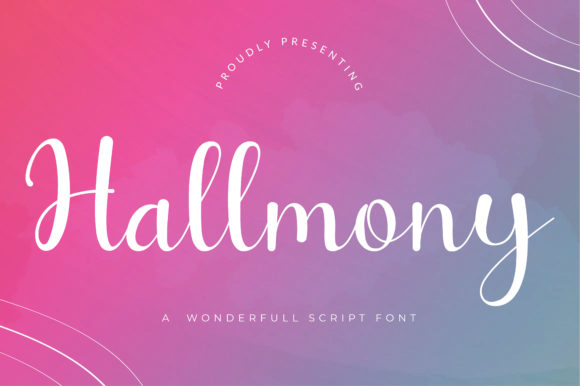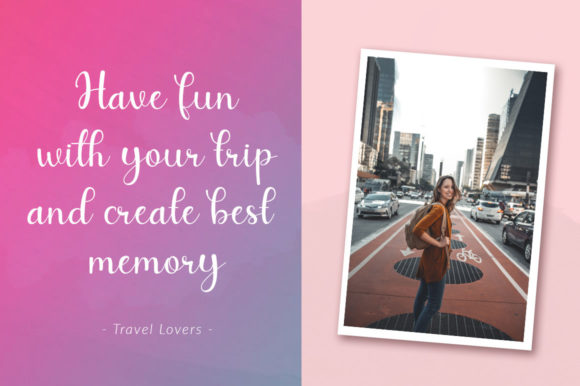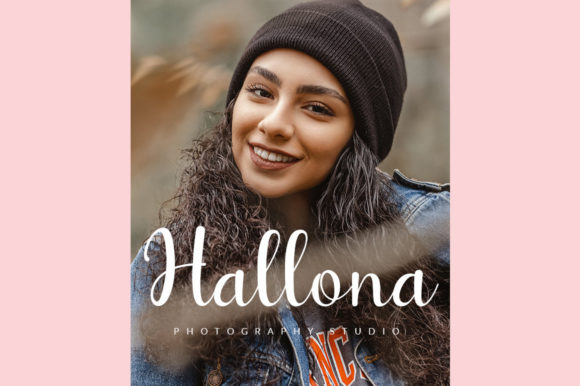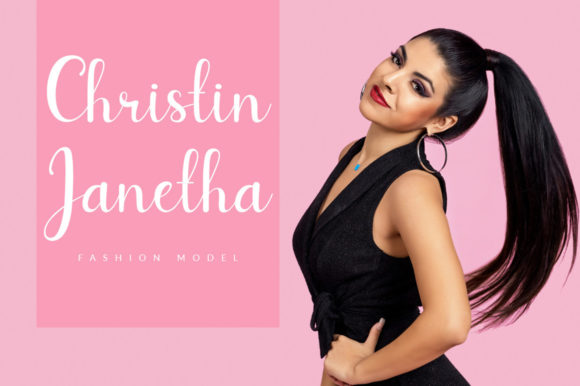
About Hallmony Font
Hallmony is a lovely and wonderful handwritten font created for advertising products, poster templates, quotes, invitations, and all designs that need high-quality fonts. The graphics in this font (like characters and kerning) are suitable for any project and will add an elegant feel to your beautiful designs.